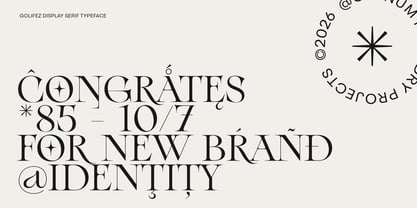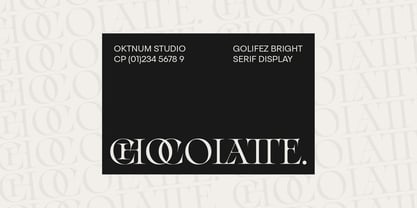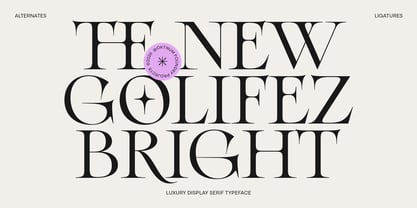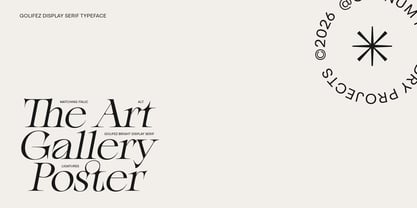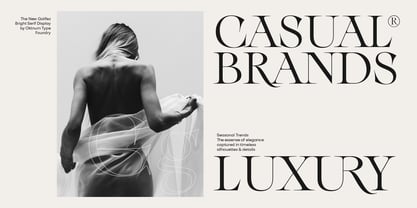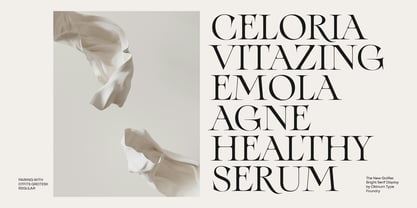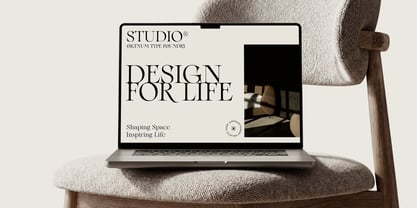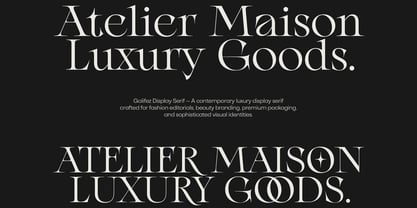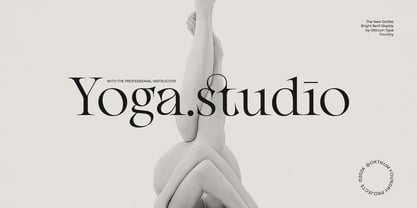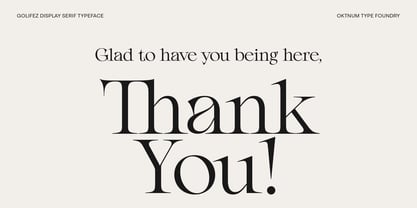
Golifez Bright Serif
by Oktnum Type Foundry
The Golifez Bright Serif Font Family was designed by Sarwo Edi and published by Oktnum Type Foundry. Golifez Bright Serif contains 2 styles and family package options. More about this family
Golifez Bright Serif is a refined editorial serif typeface designed for modern luxury. It expertly balances dramatic contrast with graceful proportions, capturing the elegance of classic typography while embracing a fresh contemporary voice. Created specifically for fashion identities, premium branding, and sophisticated publications, Golifez Bright Serif delivers a distinctive presence through its crisp serifs, sculptural curves, and expressive ligatures. Every detail is meticulously crafted to produce typography that feels polished, confident, and memorable. From luxury packaging and boutique logos to magazine covers and lifestyle campaigns, Golifez Bright Serif adapts effortlessly across both print and digital applications. Its elegant rhythm enables designers to create compositions that are timeless, elevated, and visually striking. With features such as stylistic alternates, discretionary ligatures, and multilingual Latin support, Golifez Bright Serif offers the flexibility essential for today's professional design workflows. Elegant by nature, contemporary by design, it is crafted for brands that appreciate beauty in every detail.
Designers: Sarwo Edi
Foundry: Oktnum Type Foundry